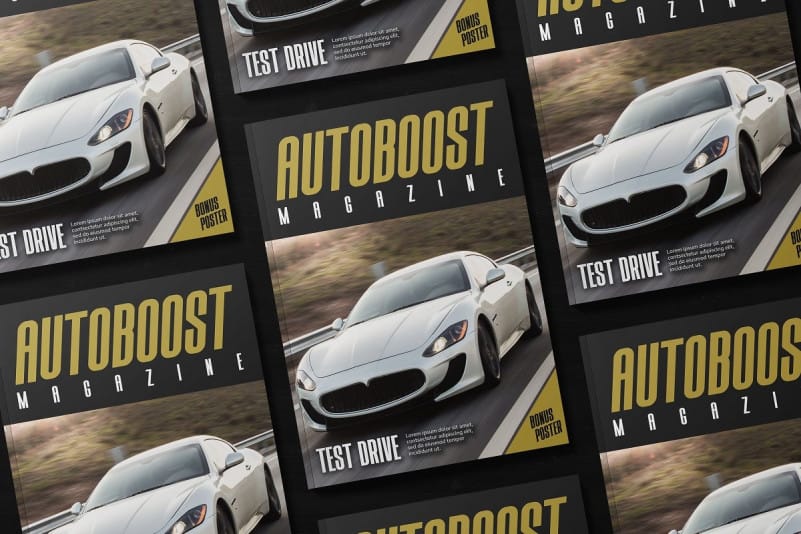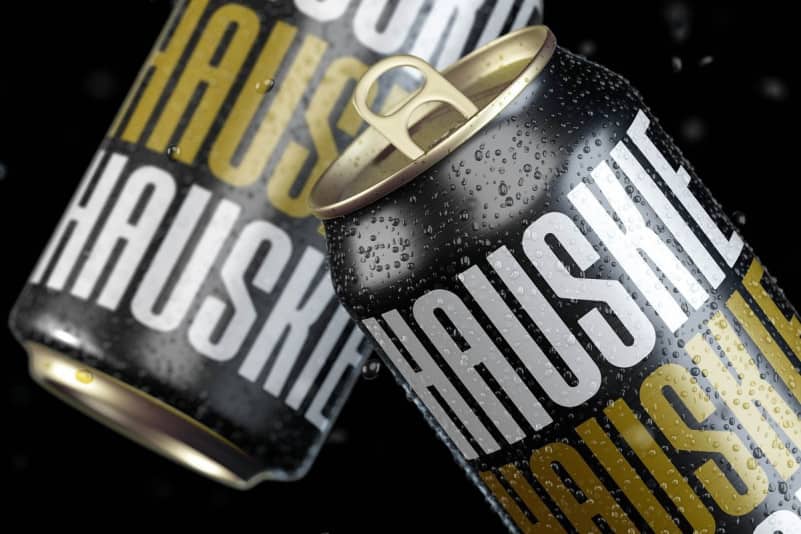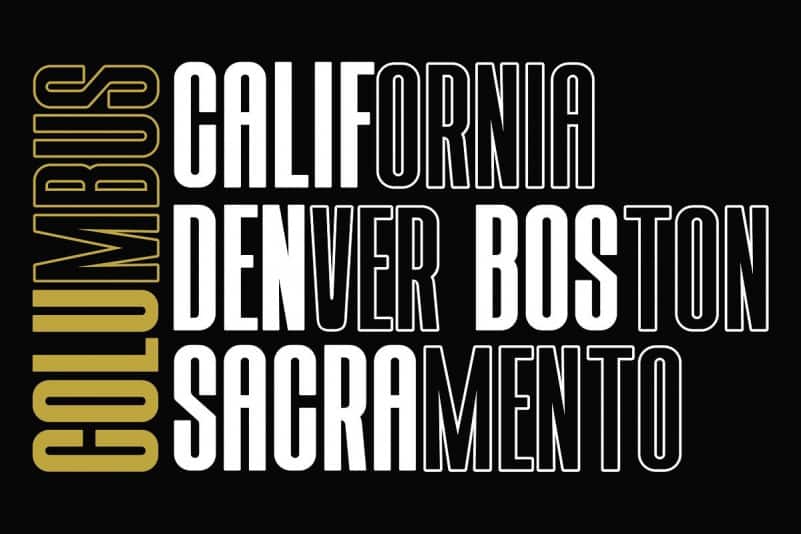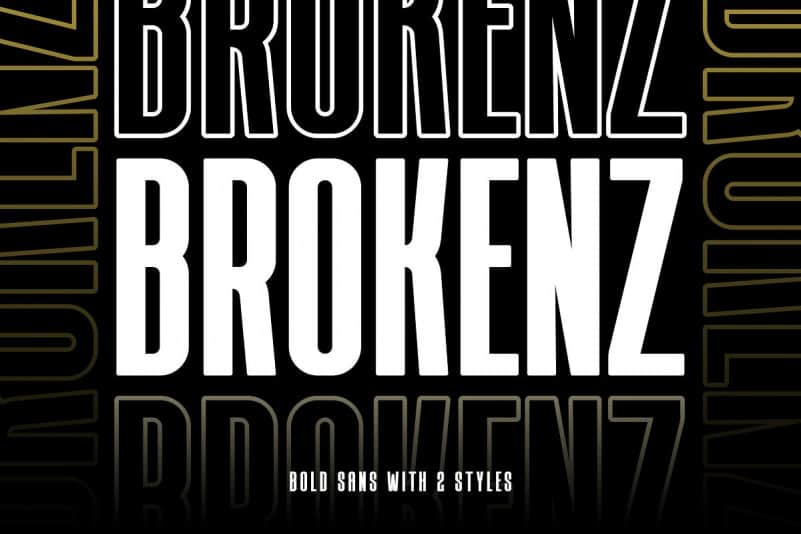
Brokenz – Bold Sans Serif Font
Thank you for checking out Brokenz Font! is a powerful and elegant display typeface, bold and fat font for important titles or names, constructed to maximize use of horizontal space! It is design and shared by Almarkha Type. Brokenz – Bold Sans Serif Condensed fonts with 4 styles with strong and challenging nuances. very suitable for the title, typography, clothes, magazines, brochures, packaging and much more for your design needs, making your designs more modern and professional